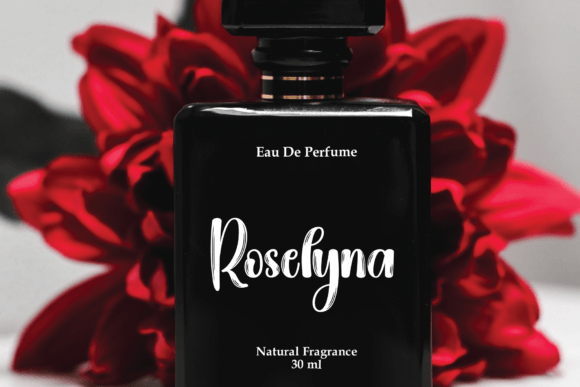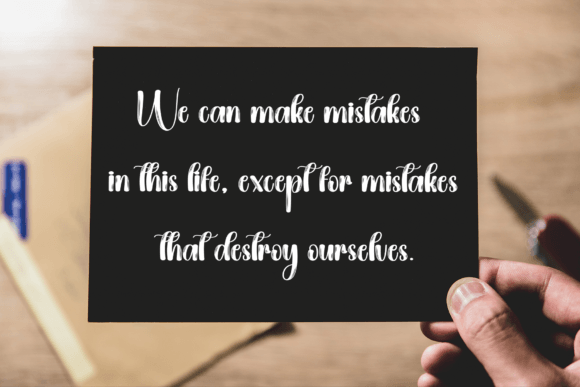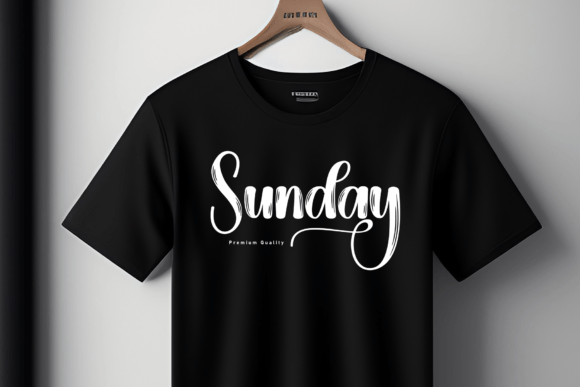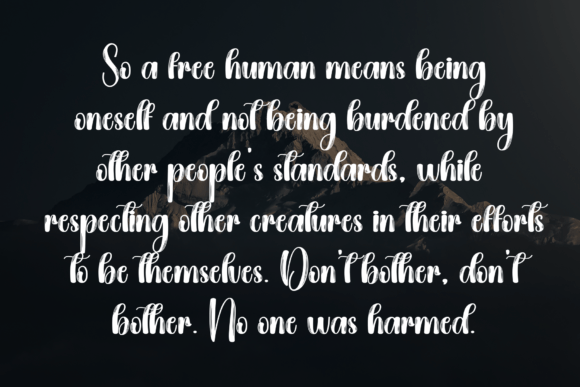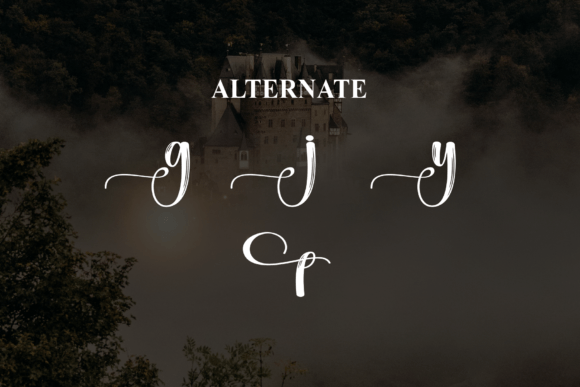
Introducing Fairytale Font: A Sweet and Friendly Handwritten Delight
Are you a designer, crafter, or DIY enthusiast looking for a font that can add a touch of magic to your projects? Look no further than Fairytale Font, a sweet and friendly handwritten font that’s perfect for a wide range of designs. With its natural and unique style, Fairytale Font is incredibly versatile and can be used to create everything from whimsical crafts to professional branding materials.
The Charm of Fairytale Font
Fairytale Font is a handwritten font that’s designed to evoke a sense of wonder and enchantment. Its natural, flowing lines and curves give it a friendly and approachable feel that’s perfect for designs that need a personal touch. Whether you’re creating a logo, a poster, or a social media graphic, Fairytale Font is sure to add a dash of personality and whimsy to your project.
The beauty of Fairytale Font lies in its versatility. Its unique style makes it incredibly fitting for a large pool of designs, from:
- Whimsical crafts and DIY projects
- Children’s books and educational materials
- Branding and marketing materials
- Party decorations and invitations
- Stationery and gift tags
The only limit is your imagination! With Fairytale Font, you can create unique and eye-catching designs that reflect your personality and style.
Why Choose Fairytale Font?
So why choose Fairytale Font over other fonts? Here are just a few reasons:
- Unique and distinctive style: Fairytale Font has a one-of-a-kind look that’s sure to set your designs apart from the crowd.
- Easily readable: Despite its whimsical nature, Fairytale Font is still easy to read, making it perfect for designs that need to communicate a message.
- Highly versatile: Fairytale Font can be used for a wide range of designs, from digital projects to print materials.
- Perfect for creative projects: Whether you’re a designer, crafter, or DIY enthusiast, Fairytale Font is the perfect choice for projects that need a touch of personality and whimsy.
Tips for Using Fairytale Font
Here are a few tips for getting the most out of Fairytale Font:
- Experiment with different colors and textures: Fairytale Font looks great in a variety of colors and textures, so don’t be afraid to get creative!
- Pair it with other fonts: Fairytale Font pairs well with other fonts, so try combining it with a bold font for headings or a clean font for body text.
- Use it for titles and headings: Fairytale Font is perfect for titles and headings, where its whimsical nature can really shine.
In conclusion, Fairytale Font is a sweet and friendly handwritten font that’s perfect for designers, crafters, and DIY enthusiasts. With its natural and unique style, Fairytale Font is incredibly versatile and can be used to create a wide range of designs. Whether you’re looking for a font that’s perfect for whimsical crafts, professional branding materials, or social media graphics, Fairytale Font is the perfect choice. So why not give it a try and see what magic you can create?